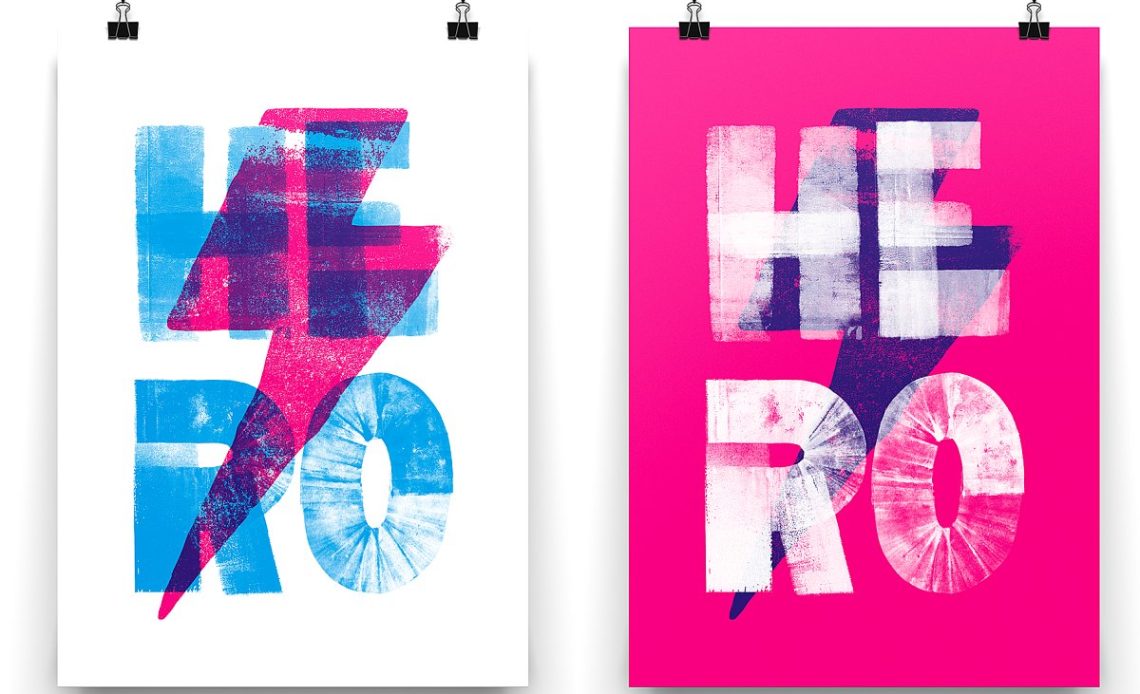
Discover the power of handmade lettering with Choose Love, a stunning display font created by Simon Stratford. This sans serif typeface is packed full of awesome print details, inspired by the unique look of hand-printed letterpress.
Unlike other fonts, Choose Love is far from perfect. It's bold, full of imperfections, and dirty marks that give it a unique, edgy look. If you're looking for a typeface that stands out from the crowd, Choose Love is the perfect choice.
This font was created with cardboard cutouts and an ink brayer, making it a true labor of love. The lettering print marks are quite staggering and give this font a hand-printed look that's hard to find anywhere else.
One of the unique features of Choose Love is its alternative glyphs. Each A to Z letterform has at least three alternatives, which means you can switch out repeating letters to make your design look more random and less like a font. You can also use these alternative glyphs to create unique type lockups that look like they were printed by hand.
Choose Love font also includes ligatures, which are in their own typeface. These ligatures feature many popular two-letter combinations that make your designs look even more impressive. And with OpenType features, you can access these alternatives and ligatures in design applications like Adobe Photoshop, Illustrator, or InDesign.